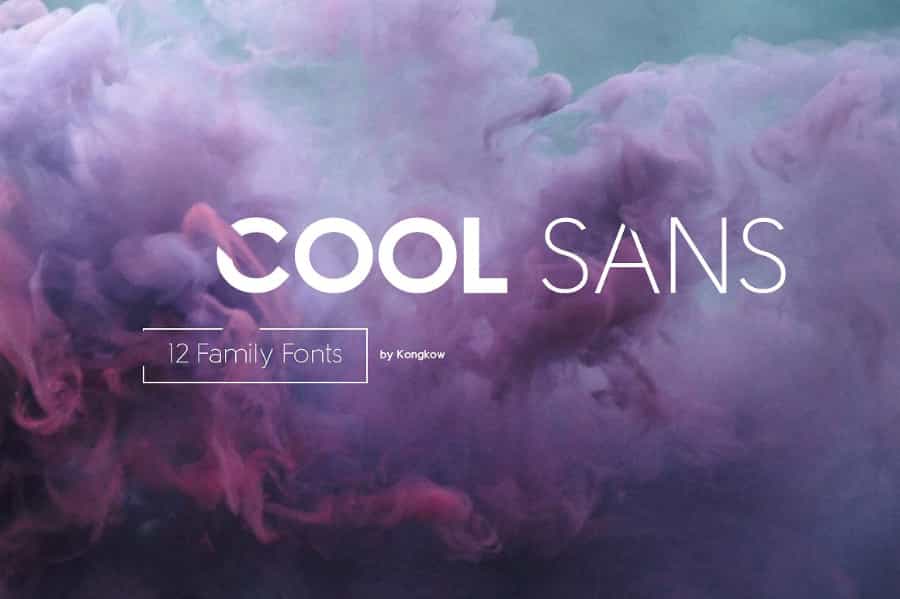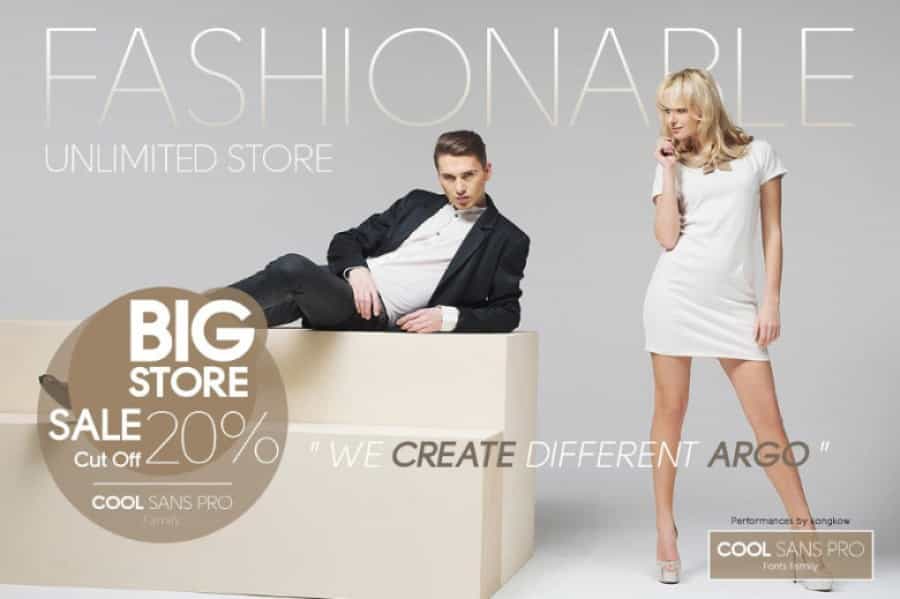
This Cool Sans Family Demo Typeface is appropriate for minimalistic designs, fashion and advertising since its design is simple, elegant, and of a modern appearance. Looking at the preview image of this font, we can conclude that Cool Sans comprises 12 dazzling fonts.